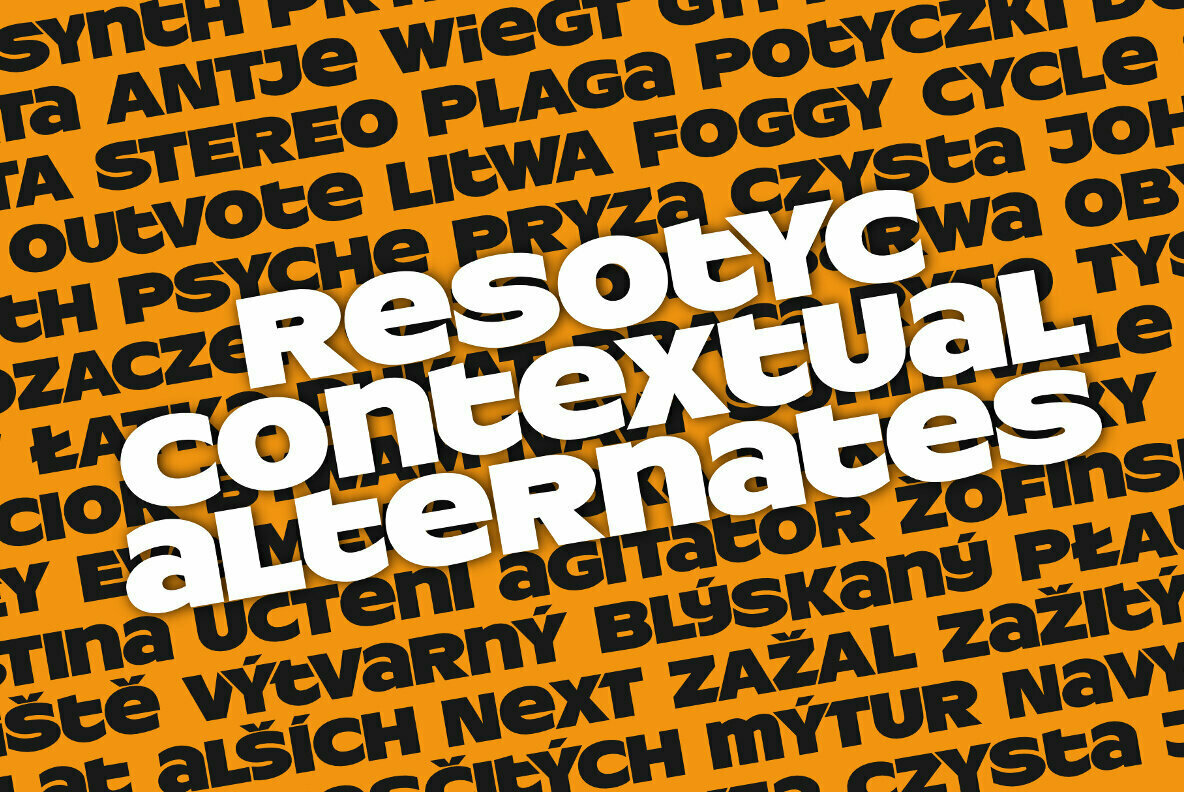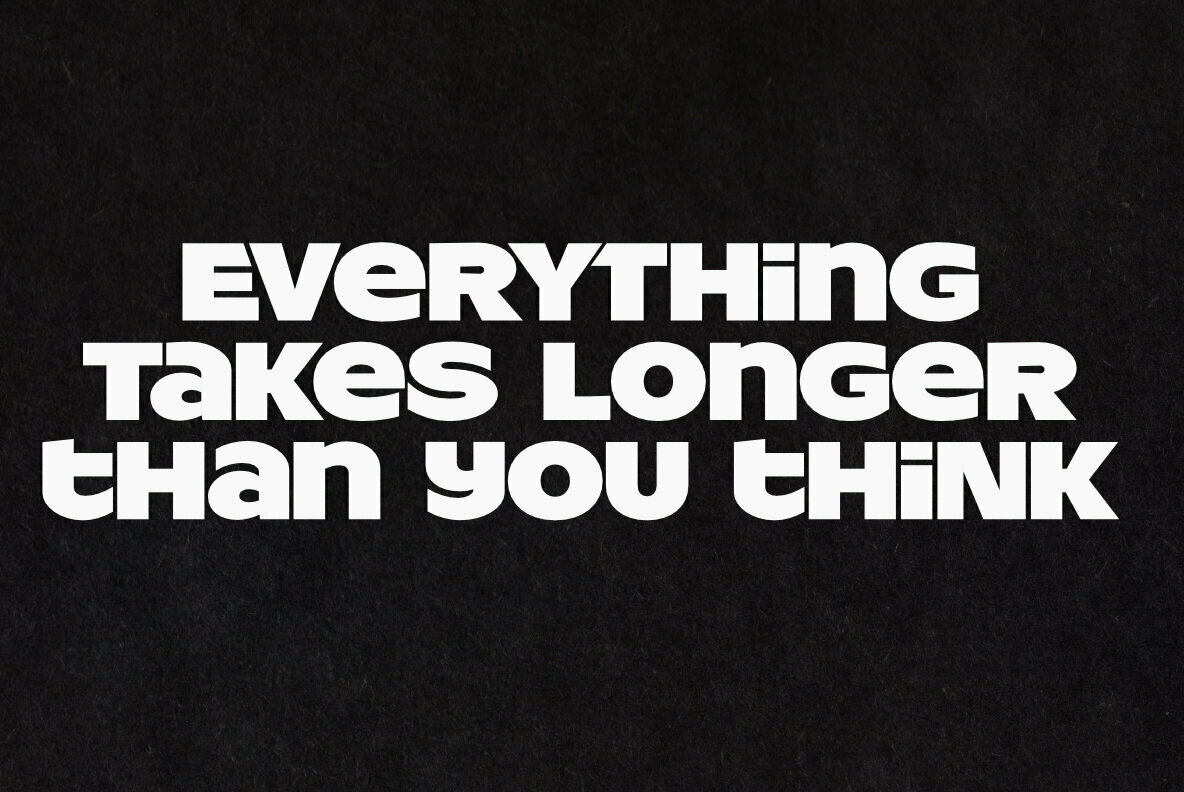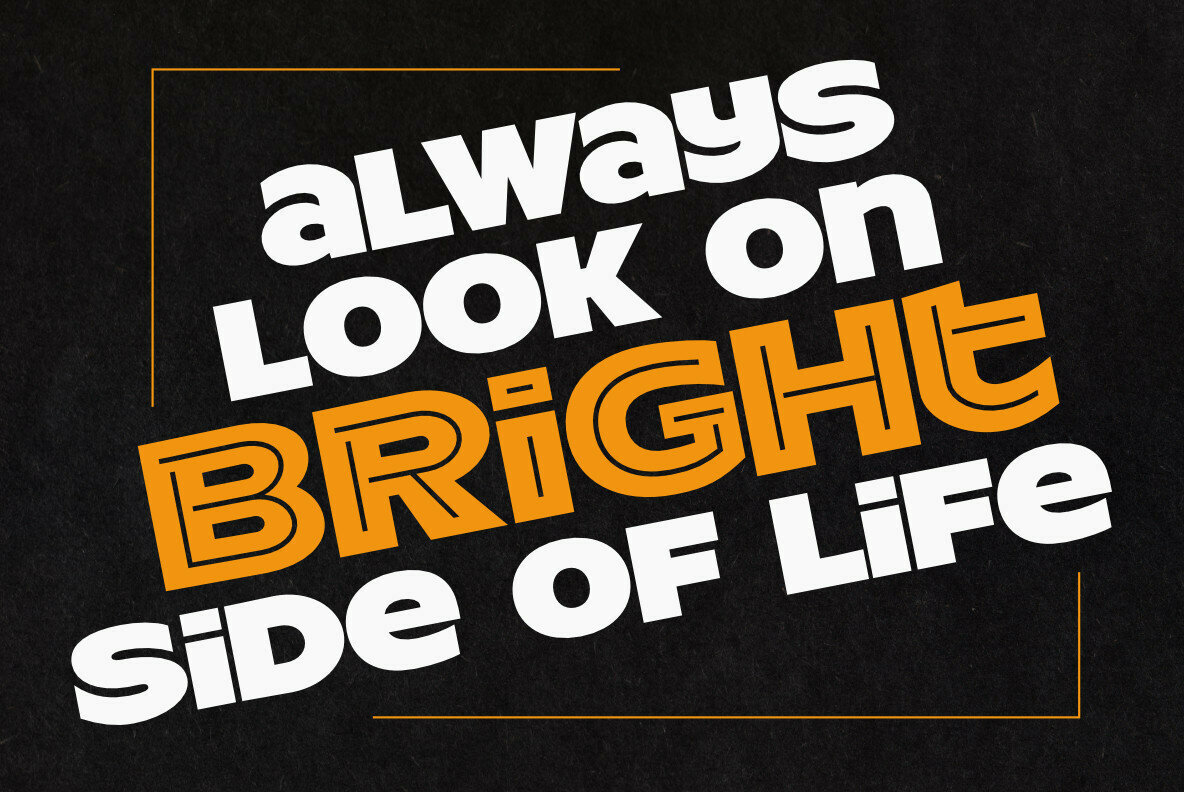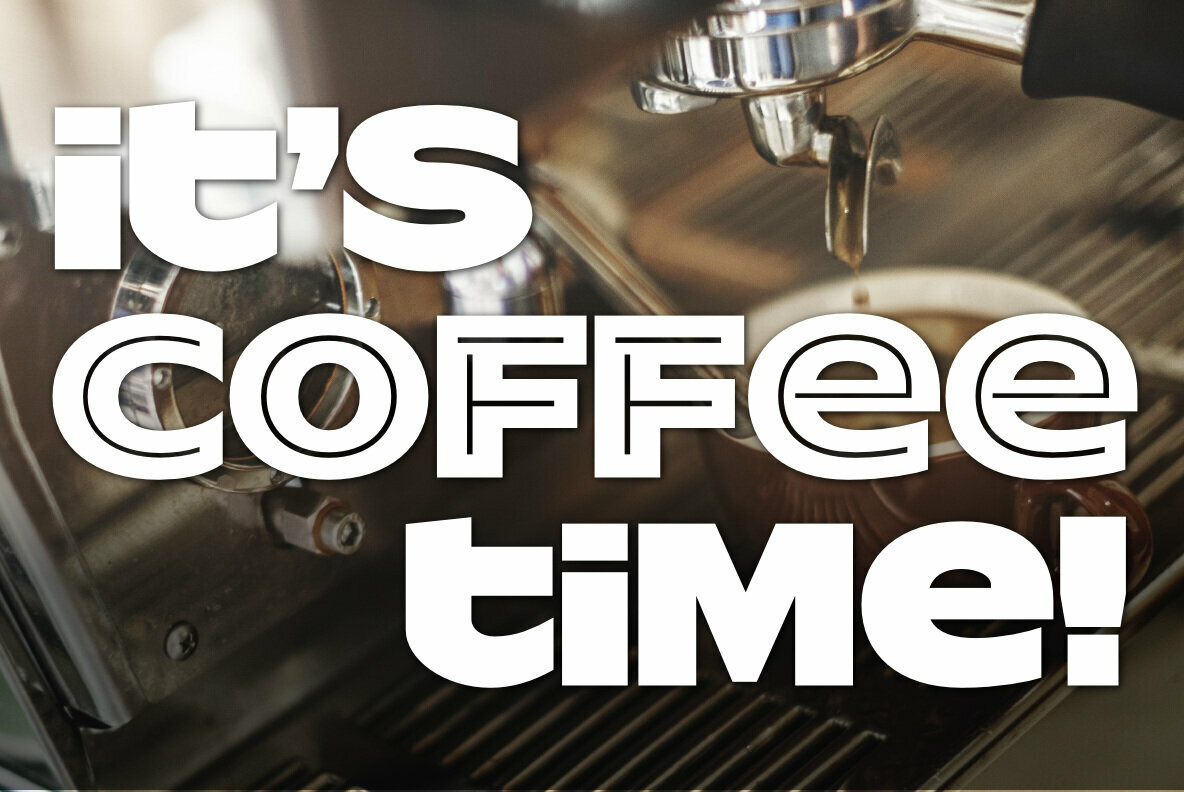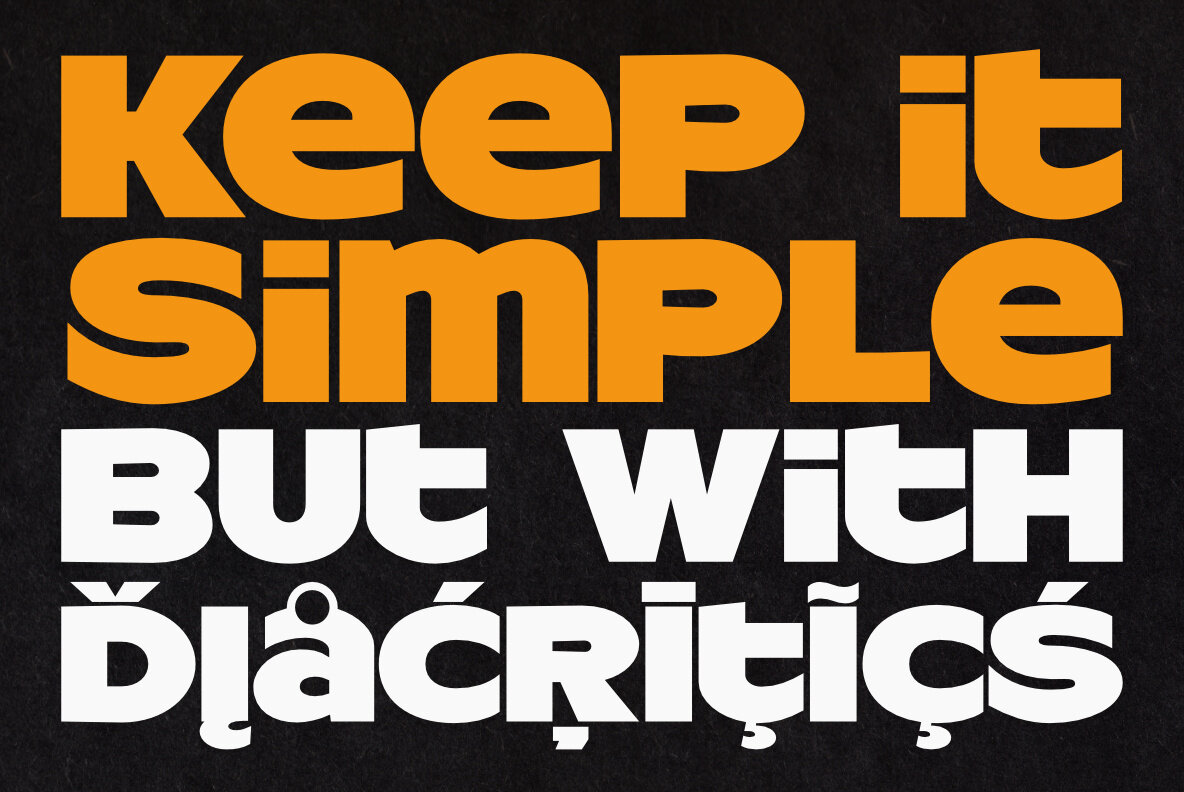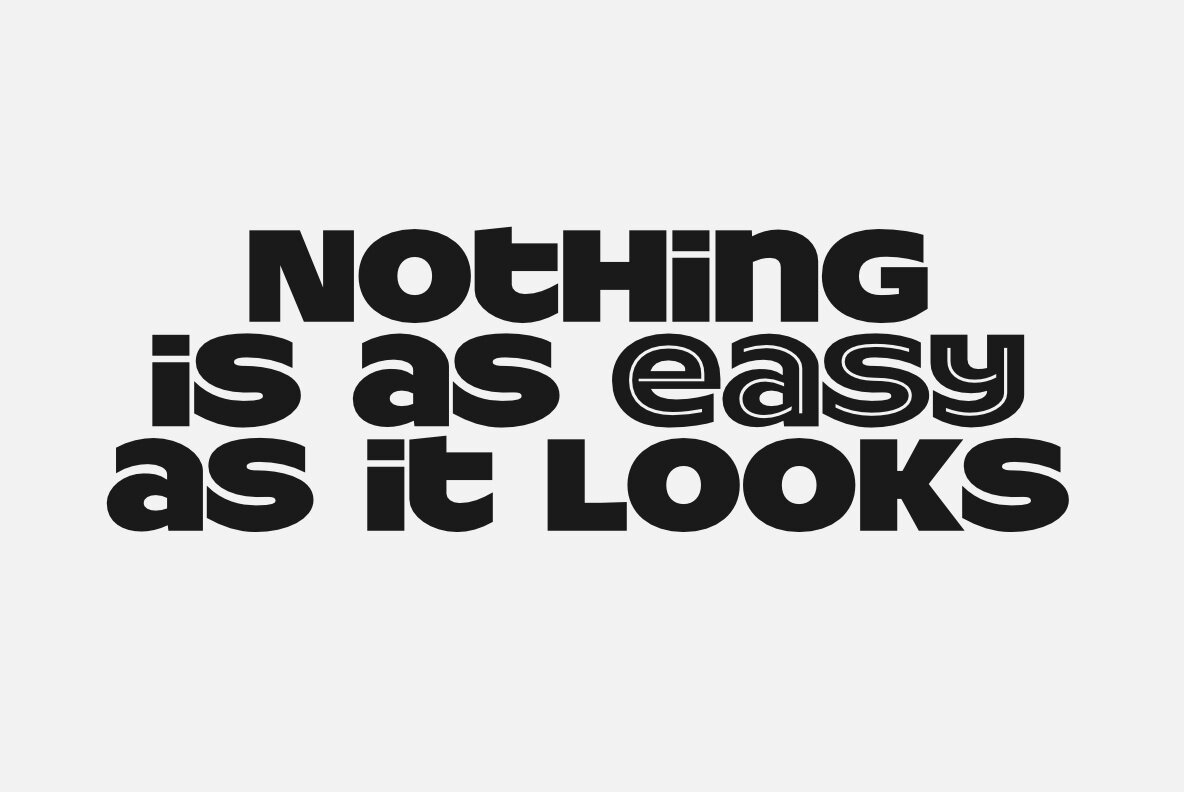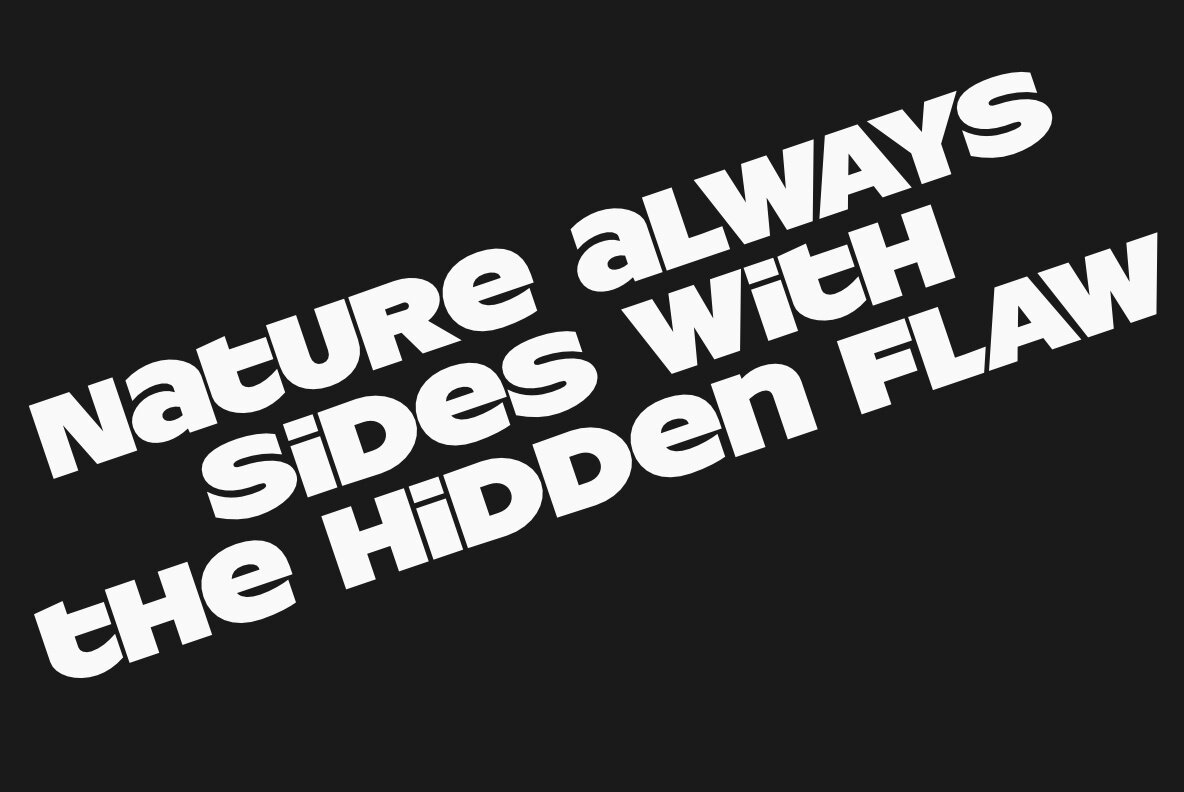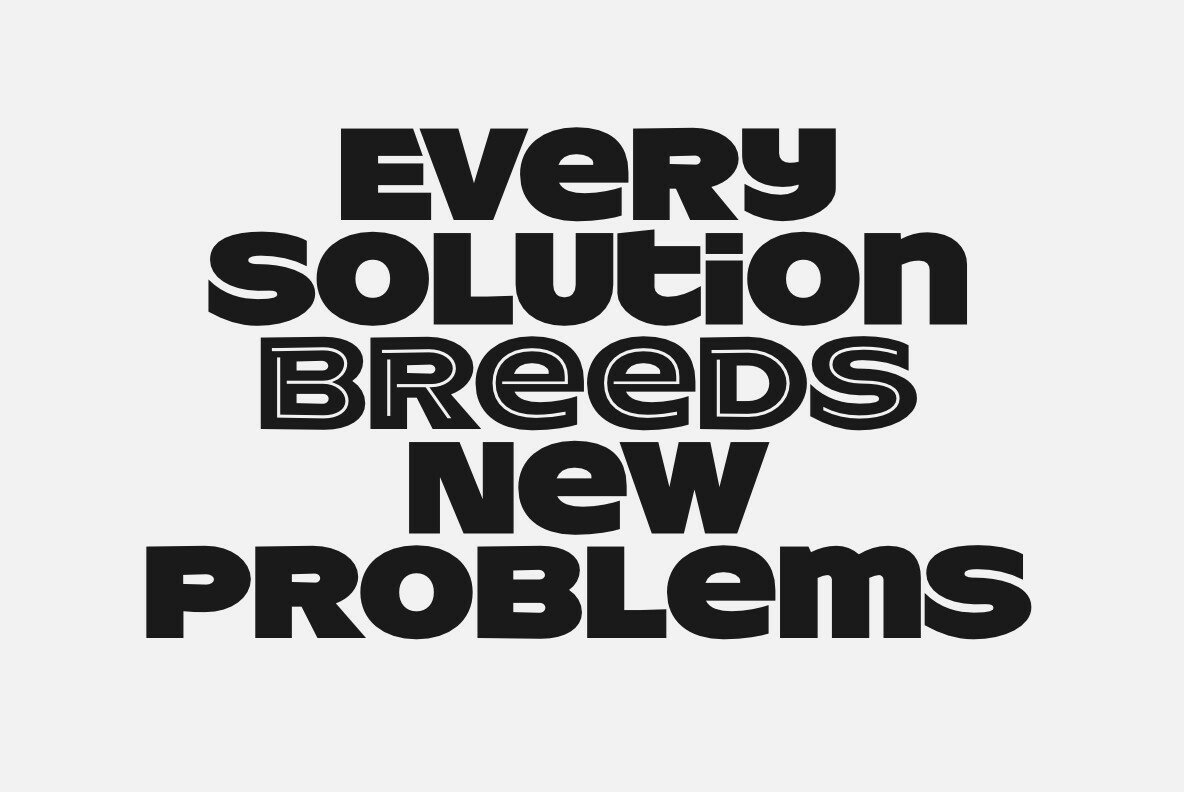
ResotYc Font
ResotYc by Grzegorz Luksza captures the essence of whimsy and creativity. This decorative unicase font set invites designers to explore typography by mixing uppercase and lowercase letters for a unique visual experience. Incorporating numerous contextual alternate glyphs, ResotYc is ideal for projects that demand an inventive approach.ResotYc: A Playful Unicase Typeface